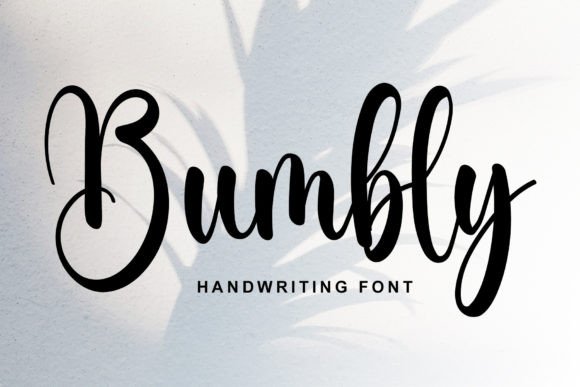
The Magic of Bumbly Font: A Festive Design Delight
What Makes Bumbly Font So Special?
Bumbly is a festive and playful typeface adorned with enchanting swashes, perfect for adding a touch of holiday magic to your Christmas cards, decorations, and more. With its whimsical design, this font is sure to spread the joy of the season. One of the standout features of Bumbly Font is that it’s PUA encoded, which means you can access all of the amazing glyphs and ligatures with ease!
An Honest Review of Bumbly Font
The Good: What I Love About Bumbly Font
- ✨ Festive and playful design: Bumbly Font is perfect for holiday projects, with its enchanting swashes and whimsical style.
- ✅ PUA encoded for easy access: The font’s PUA encoding makes it easy to access all the glyphs and ligatures, allowing for endless creative possibilities.
- 🎉 Perfect for holiday projects: From Christmas cards to decorations, Bumbly Font is the perfect choice for adding a touch of holiday magic to your designs.
The Not-So-Good: Small Quirks or Limitations
- ⚠️ Limited use outside of holiday projects: Due to its festive design, Bumbly Font may not be the best choice for non-holiday projects.
- 🤔 May require some experimentation: With so many glyphs and ligatures available, it may take some time to get familiar with the font’s features and find the perfect combination for your design.
The Story Behind Bumbly Font
Bumbly Font was designed with the holiday season in mind. The creator wanted to craft a font that would capture the magic and whimsy of the holidays, with enchanting swashes and a playful style. The result is a font that’s perfect for adding a touch of holiday cheer to your designs.
Q: What is Bumbly Font?
A: Bumbly Font is a festive and playful typeface adorned with enchanting swashes, perfect for adding a touch of holiday magic to your Christmas cards, decorations, and more.
Q: Is Bumbly Font PUA encoded?
A: Yes, Bumbly Font is PUA encoded, which means you can access all of the amazing glyphs and ligatures with ease!